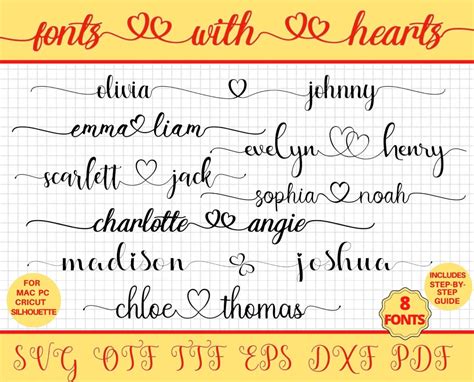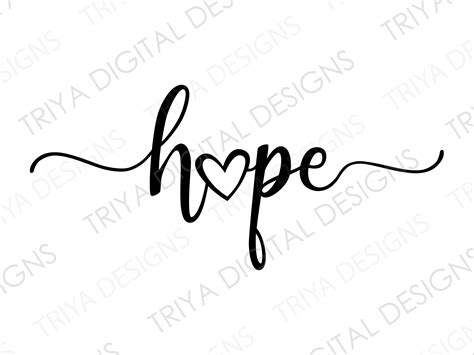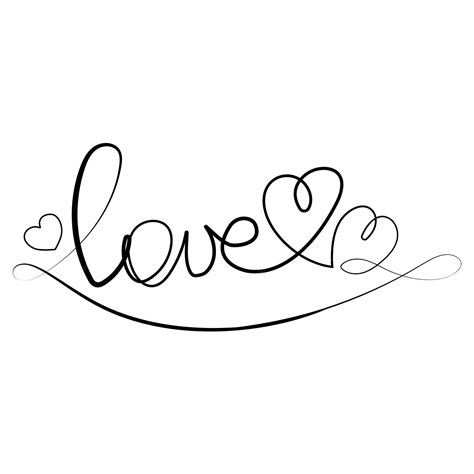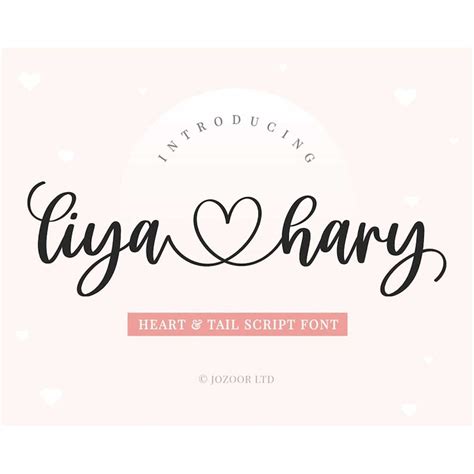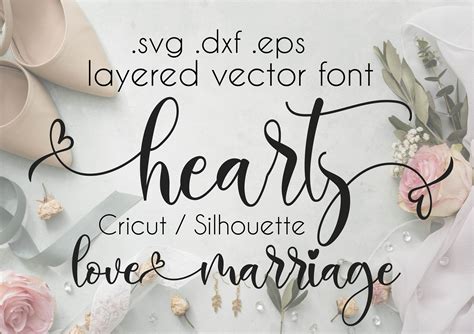
In the world of typography, the allure of a script font with hearts can add a touch of romance and elegance to any design project. Whether you're creating wedding invitations, Valentine's Day cards, or any other romantic-themed materials, a script font with hearts can elevate your work to new heights. This post will delve into the intricacies of script fonts with hearts, exploring their history, applications, and how to effectively use them in your designs.
Understanding Script Fonts with Hearts
A script font with hearts is a typeface that mimics handwritten or calligraphic styles, often incorporating heart shapes within the letters or as decorative elements. These fonts are particularly popular in projects that require a personal, romantic, or whimsical touch. The hearts can be subtle, integrated into the letterforms, or more pronounced, serving as standalone decorative elements.
Script fonts with hearts are versatile and can be used in a variety of contexts, from digital designs to print media. They are often chosen for their ability to convey emotion and add a personal touch to any project. Whether you're designing a logo, creating a social media post, or crafting a handwritten-style invitation, a script font with hearts can make your work stand out.
History and Evolution of Script Fonts with Hearts
The use of script fonts dates back to the early days of typography, with calligraphic styles being one of the earliest forms of written communication. Over time, these styles evolved, and with the advent of digital typography, designers began to experiment with adding decorative elements like hearts to script fonts. This evolution has led to a wide variety of script fonts with hearts, each with its unique characteristics and applications.
Early script fonts were often used in formal and official documents, but as typography evolved, these fonts found their way into more personal and creative projects. The addition of hearts to script fonts is a relatively modern development, reflecting the growing trend towards personalization and emotional expression in design. Today, script fonts with hearts are a staple in the toolkit of many designers, offering a way to add a touch of romance and whimsy to any project.
Applications of Script Fonts with Hearts
Script fonts with hearts are incredibly versatile and can be used in a wide range of applications. Here are some of the most common uses:
- Wedding Invitations: A script font with hearts can add a romantic touch to wedding invitations, making them more personal and memorable.
- Valentine's Day Cards: These fonts are perfect for Valentine's Day cards, conveying love and affection in a visually appealing way.
- Social Media Graphics: Script fonts with hearts can be used to create eye-catching social media graphics, adding a personal touch to your posts.
- Branding and Logos: For brands that want to convey a sense of romance or whimsy, a script font with hearts can be an excellent choice for logos and branding materials.
- Personal Stationery: Adding a script font with hearts to your personal stationery can make your letters and notes more special and memorable.
Each of these applications benefits from the unique characteristics of script fonts with hearts, making them a popular choice for designers looking to add a personal touch to their work.
Choosing the Right Script Font with Hearts
When selecting a script font with hearts, it's important to consider the specific needs of your project. Here are some factors to keep in mind:
- Legibility: Ensure that the font is easy to read, especially if it will be used in small sizes or on digital screens.
- Style: Choose a font that matches the overall style and tone of your project. For example, a more formal script font with hearts might be suitable for wedding invitations, while a more playful font might be better for social media graphics.
- Versatility: Consider whether the font can be used in a variety of contexts. Some script fonts with hearts are more versatile than others, making them a good choice for projects that require multiple applications.
- Licensing: Make sure the font is licensed for the intended use. Some fonts may have restrictions on commercial use, so it's important to check the licensing terms before making a selection.
By considering these factors, you can choose a script font with hearts that best suits your project and helps you achieve your design goals.
Designing with Script Fonts with Hearts
Once you've chosen the right script font with hearts, it's time to start designing. Here are some tips to help you make the most of your chosen font:
- Pairing with Other Fonts: Script fonts with hearts can be paired with a variety of other fonts to create a balanced and harmonious design. Consider using a sans-serif or serif font for body text, while using the script font for headings or decorative elements.
- Color Scheme: Choose a color scheme that complements the script font with hearts. Soft, romantic colors like pink, red, and gold can enhance the font's romantic appeal, while bolder colors can add a more playful touch.